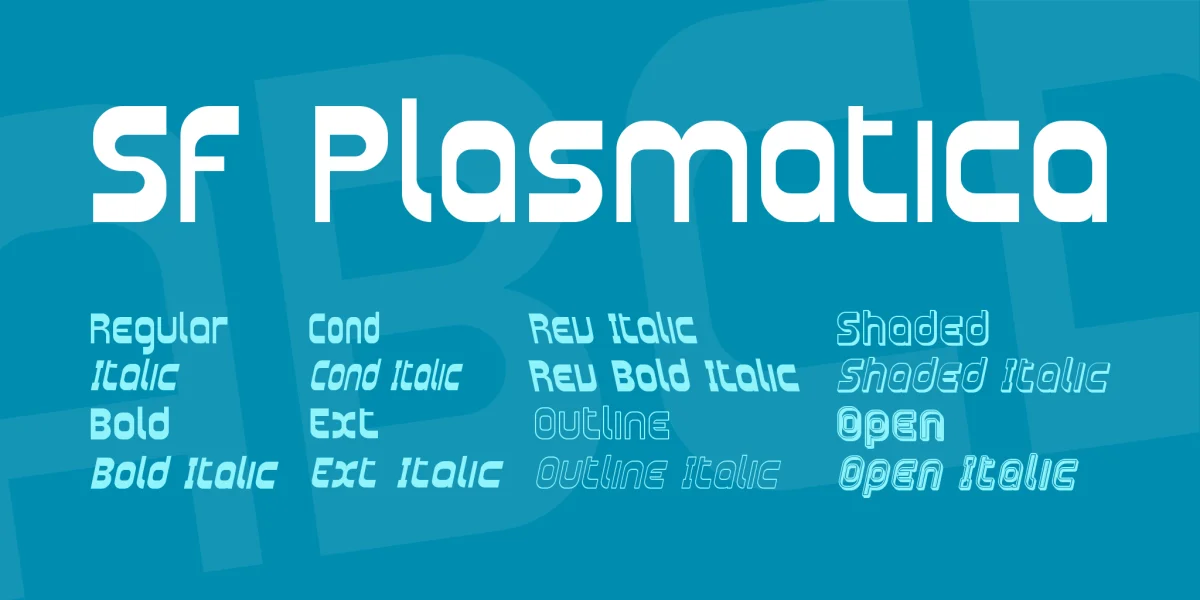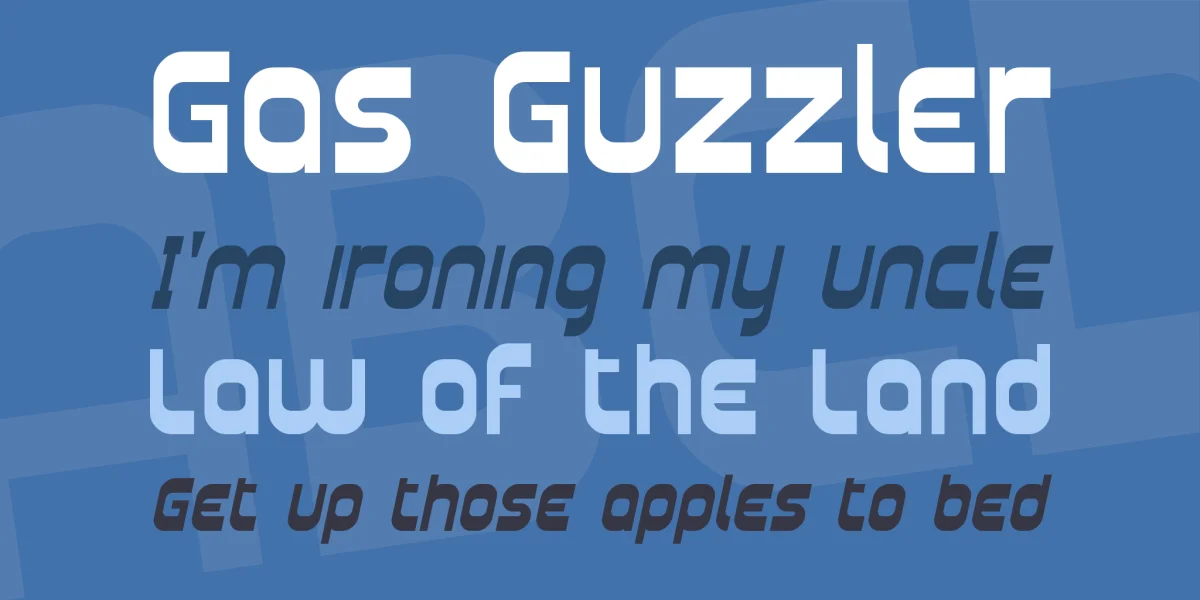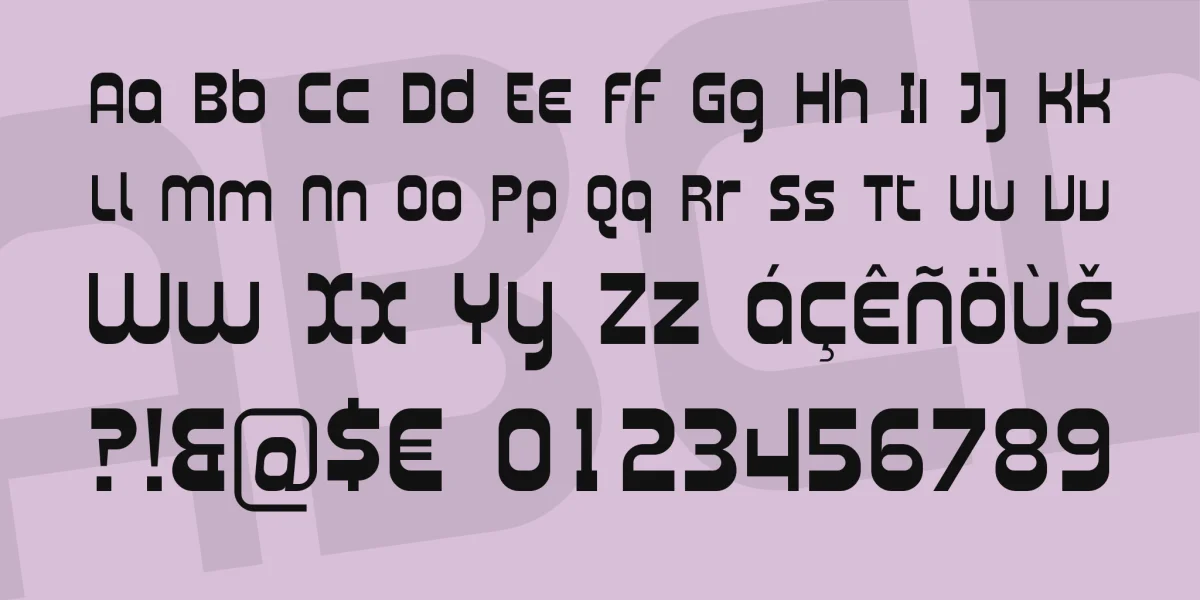
SF Plasmatica Font Family
Designed by ShyFoundry Fonts
A techno, sans serif originally designed in 2001 for Apostrophic Labs, SF Plasmatica contains lowercase and uppercase letters, numbers, punctuation, and accented characters.